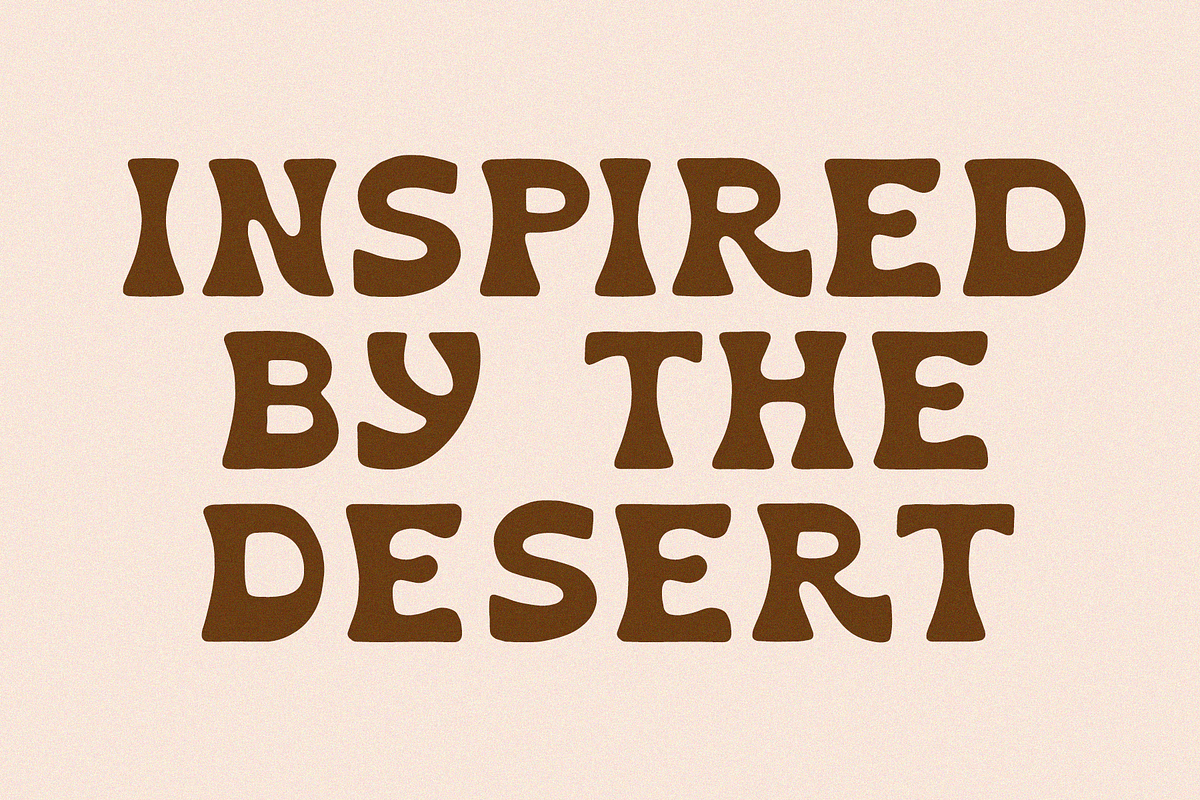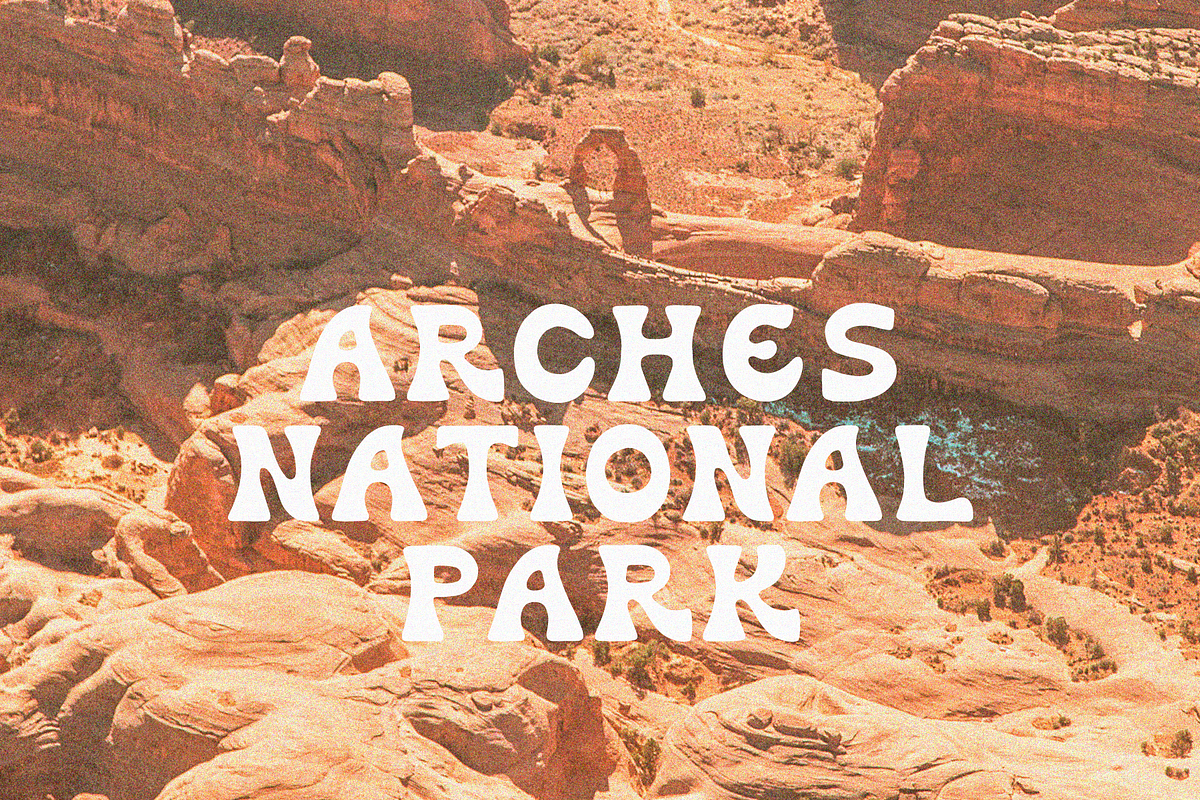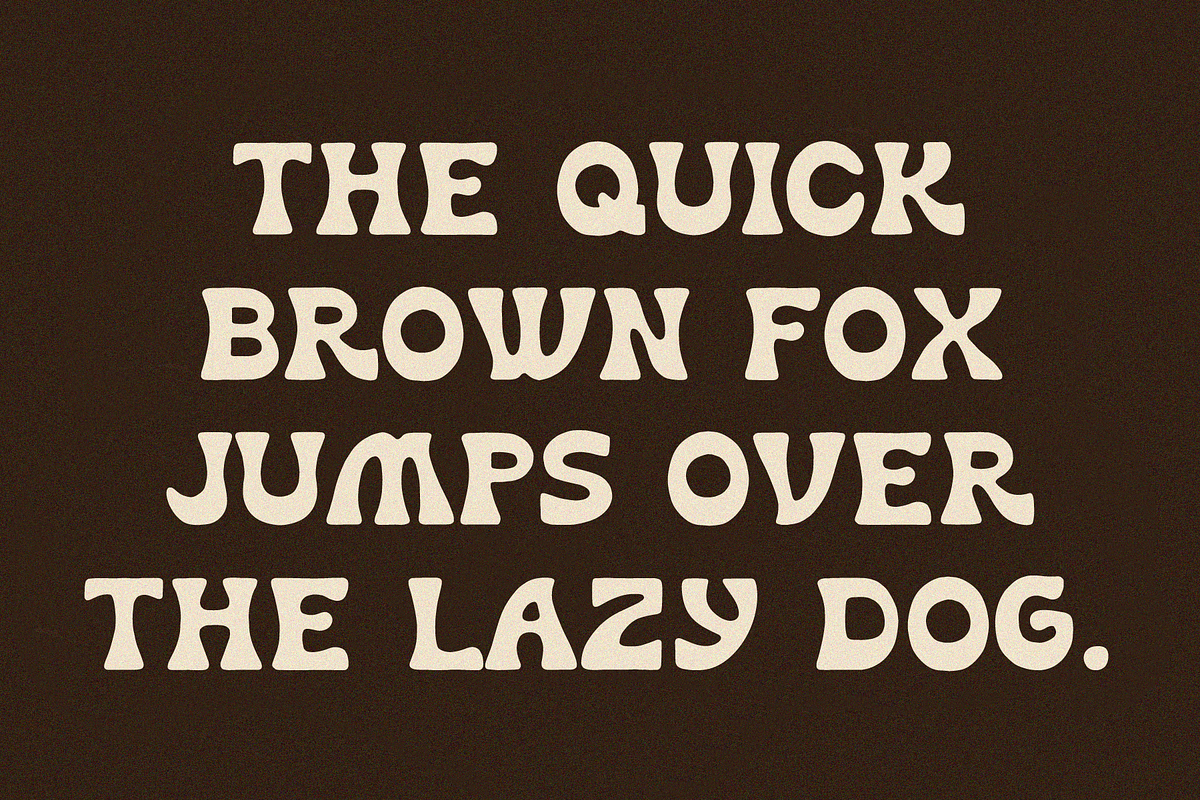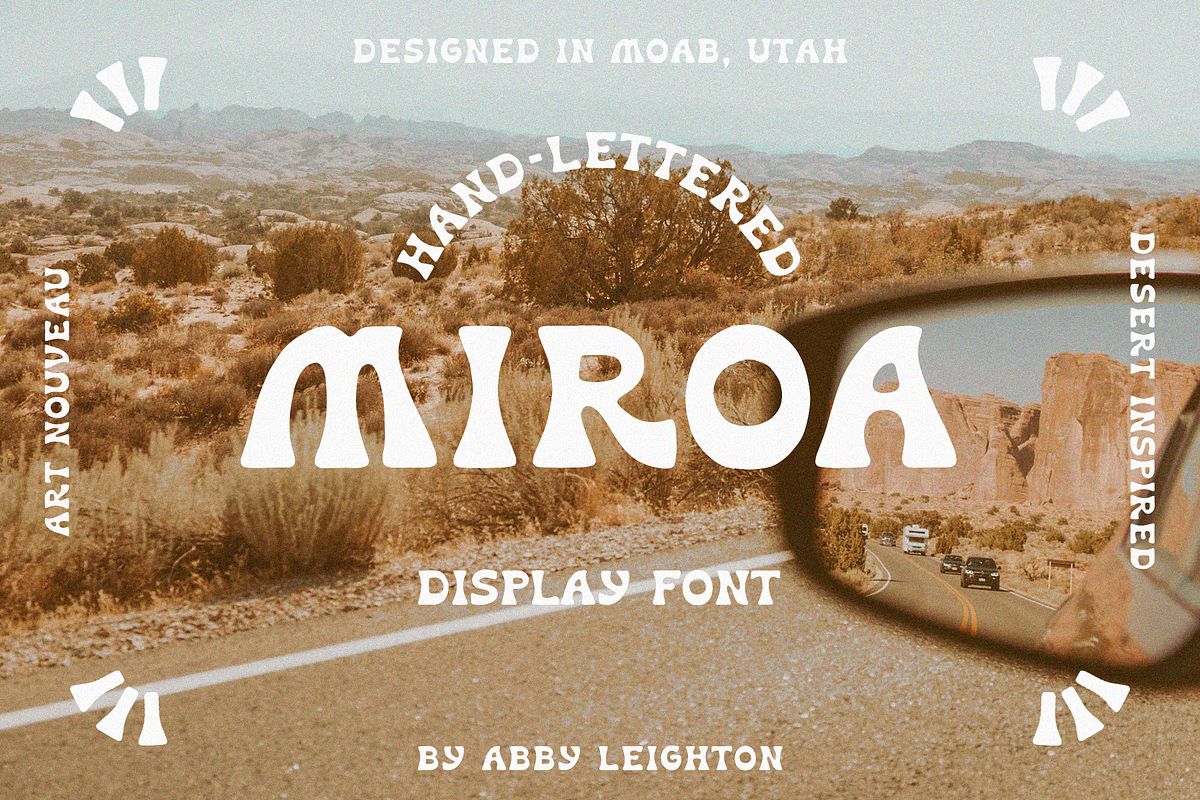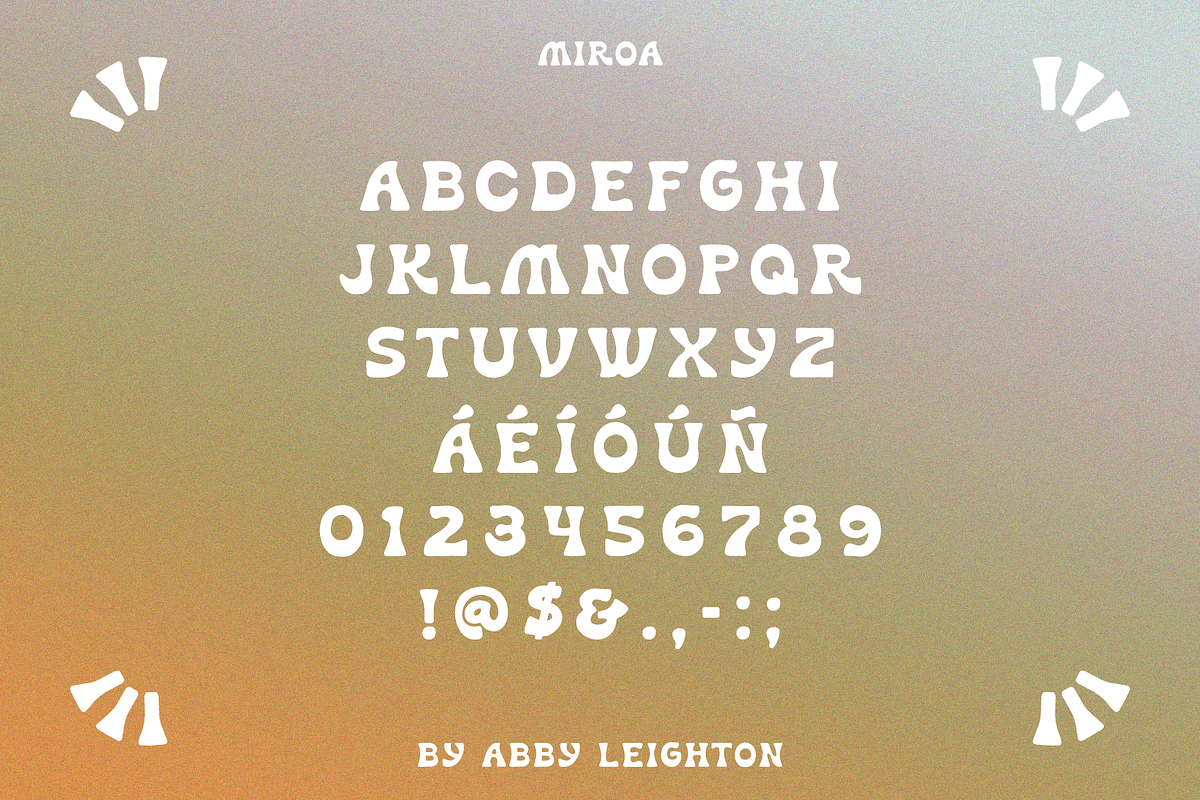
MIROA by Abby Leighton
MIROA is an art nouveau and desert-inspired typeface. Retro, hand-drawn, and playful, it's perfect for that hand-lettered touch in your project.